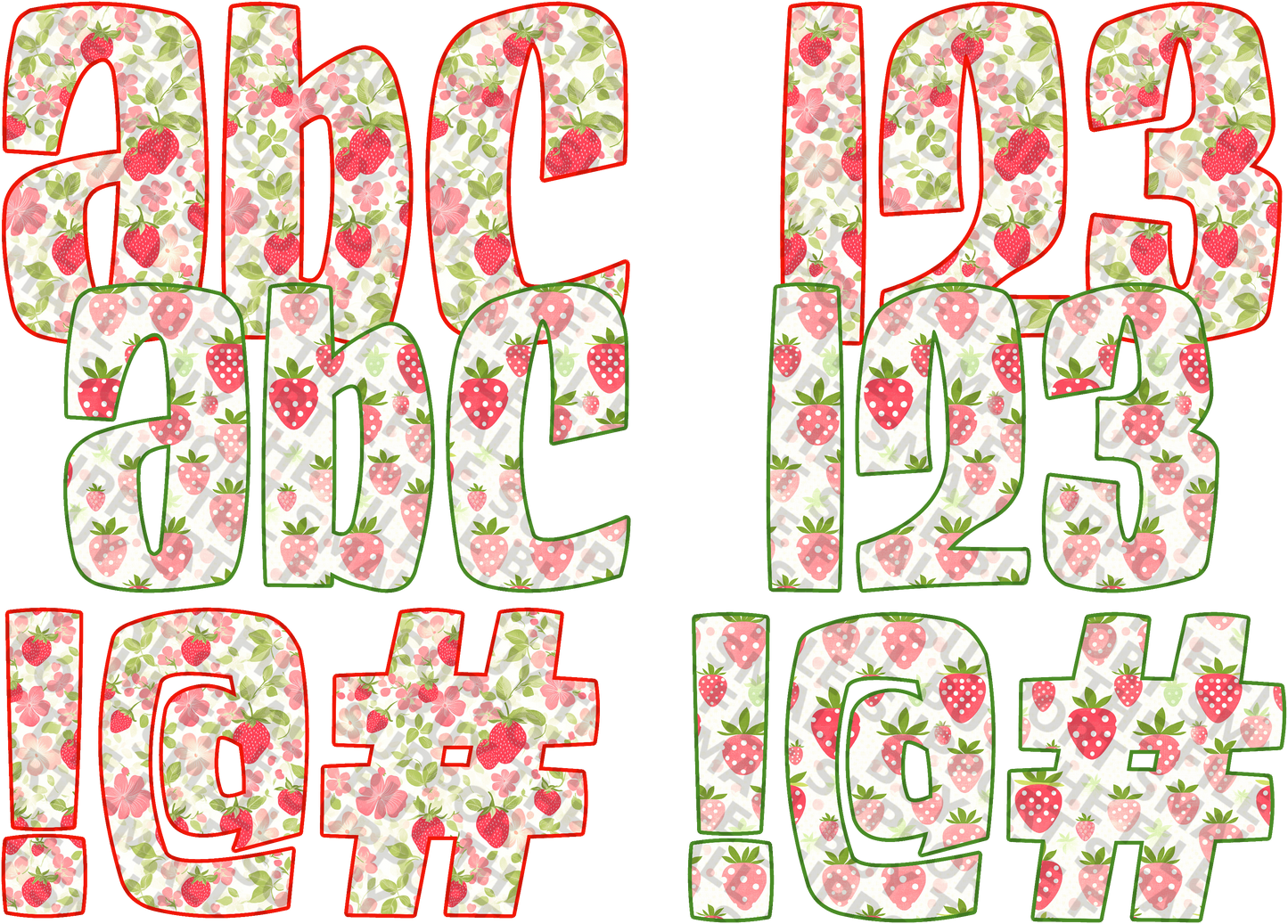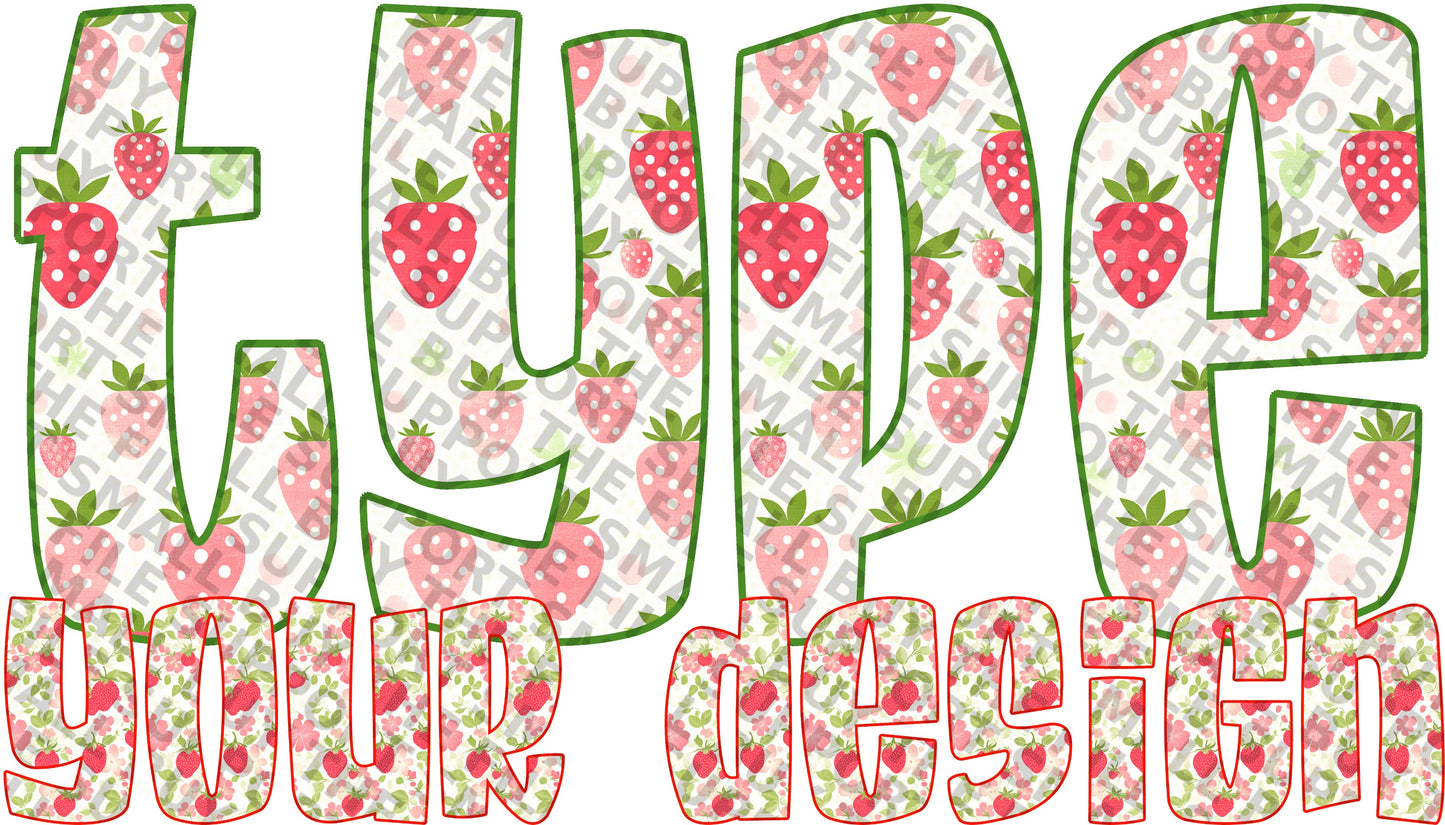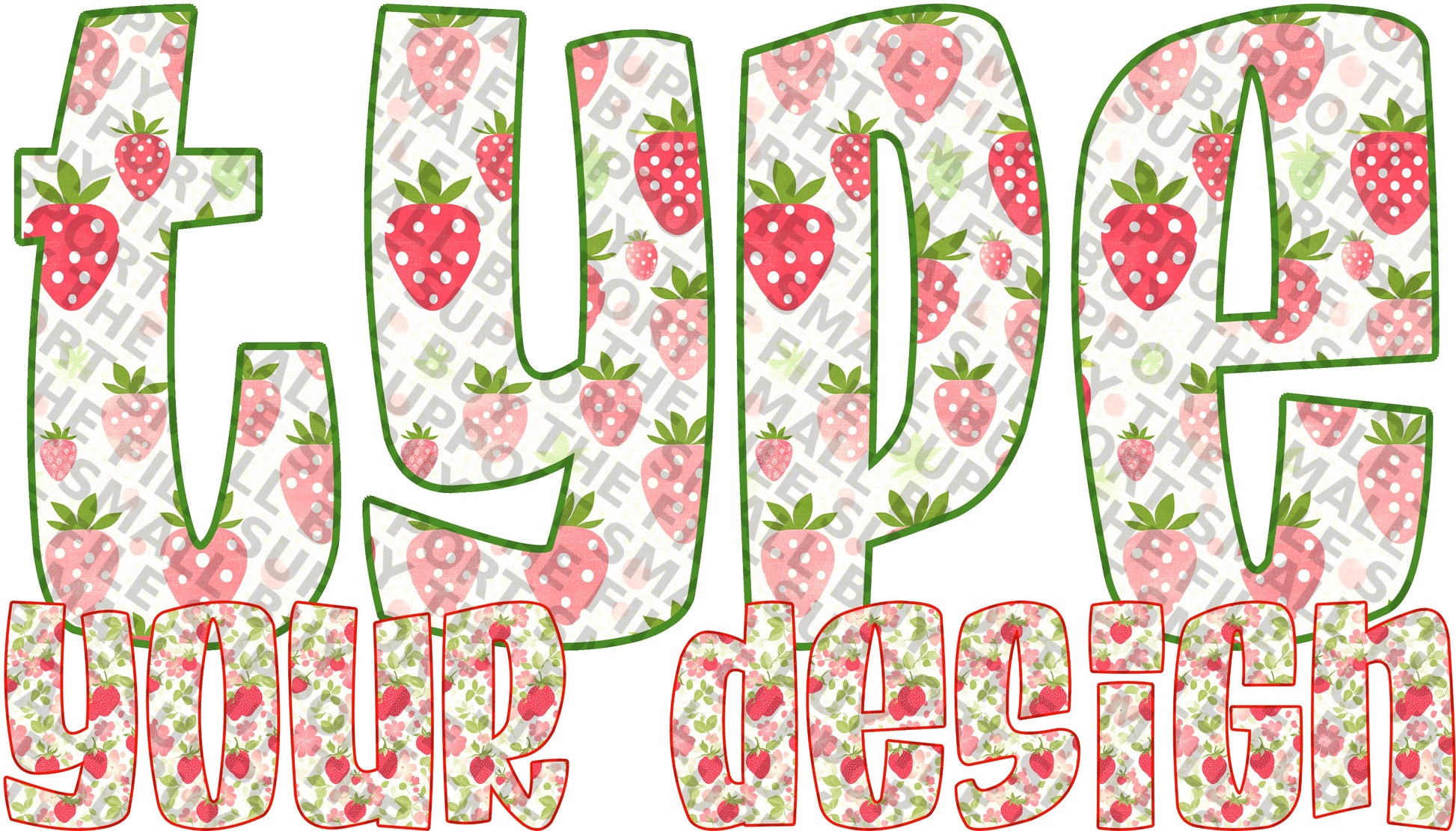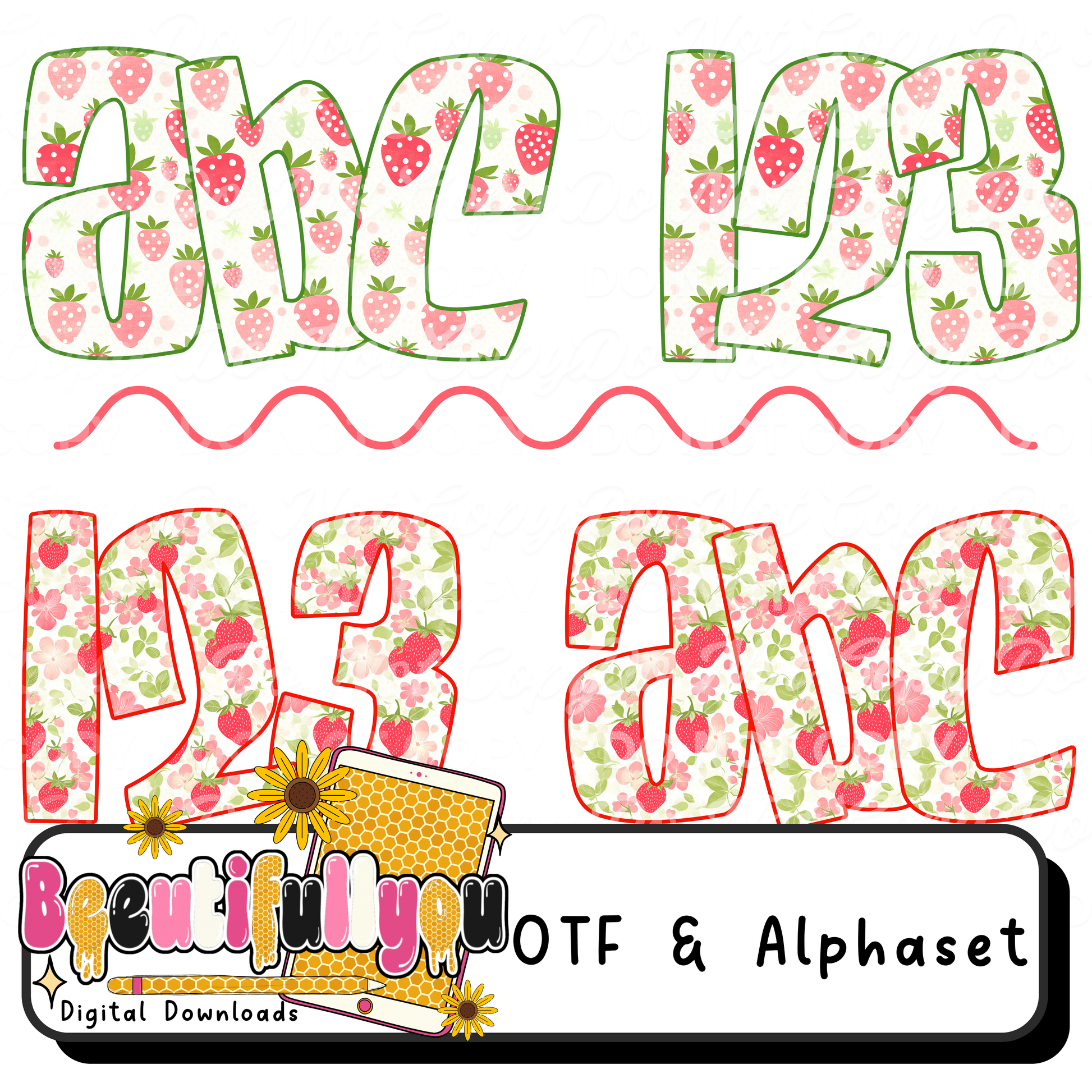
Berry Sweet Alpha Duo | Strawberry Alphabet PNG + OTF Font Bundle | Cute Floral Letters for Shirts & Sublimation
đđ The sweetest alphabet youâll ever design with.
This Berry Sweet Alpha Duo includes TWO coordinating strawberry-themed alphabets â perfect for creating trendy, eye-catching designs for summer, kids apparel, and personalized products.
With soft florals, cute strawberries, and playful outlines, this set is made to help your designs stand out and SELL â¨
đ Design Style
⨠Strawberry patterns
⨠Soft floral accents
⨠Playful bold lettering
⨠Perfect mix of cute + trendy
⢠Colors/designs are built into the letters